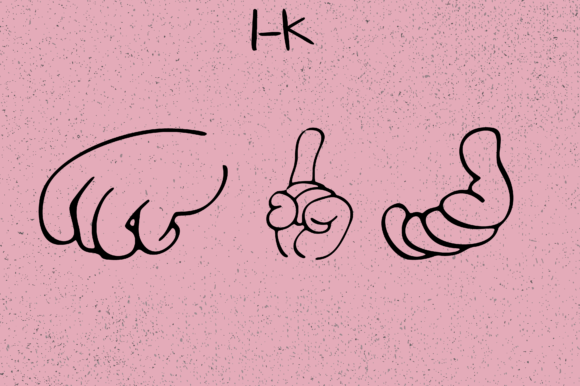
Hands 2.0 Font
About Hands 2.0 Font
Hands 2.0 is a dingbats font, designed to help you effortlessly generate up to 37 unique hands poses. Whatever the topic, this font will be a wonderful asset to your font library, as it has the potential to enhance any creation.